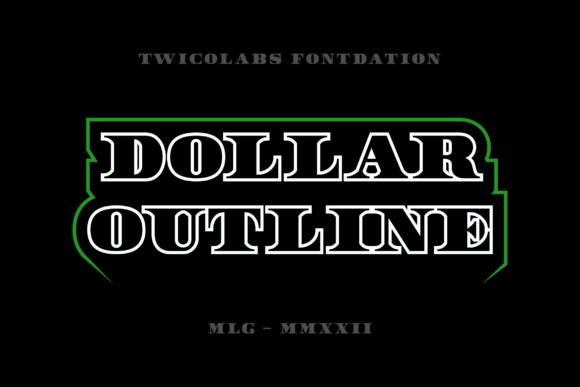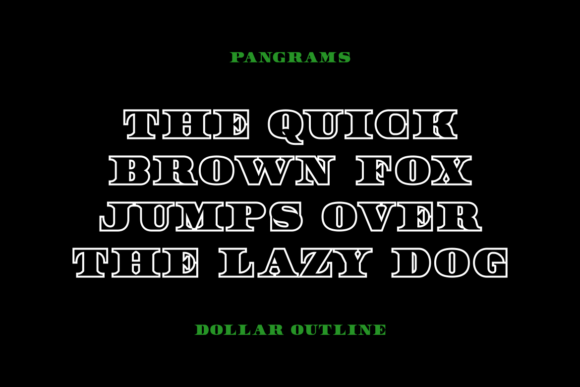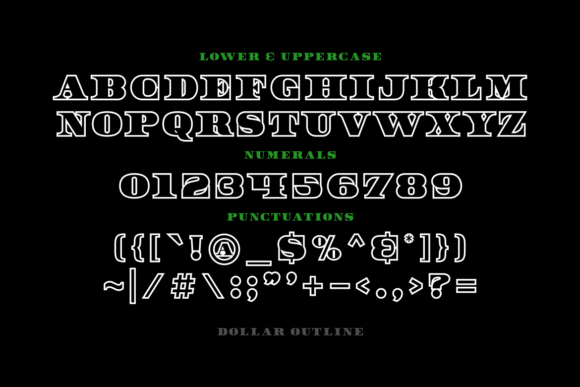
Dollar Outline Font
About the Dollar Outline Font
Introducing the Dollar Outline Font, a beautifully crafted typeface designed to elevate your creative projects. Dollar Outline is a serif display font inspired by banknotes, suitable for classic and vintage designs. This font is a must-have in your library, as it will make your creative projects beautiful and outstanding!
Dollar Outline’s strong, crisp serifs make it ideal for headlines, logos, and short, impactful text on packaging or posters. Its vintage inspiration lends itself well to projects with a classic or retro feel, such as branding for a whiskey distillery or a boutique hotel. Avoid using it for body text or long-form content; its bold design isn’t legible at smaller sizes.
The font’s personality is confident and authoritative, yet refined. Pairing it with a clean sans-serif like Open Sans for body copy would create a balanced and sophisticated look. Alternatively, a playful script font could add a touch of vintage charm, while a geometric sans-serif would provide a modern contrast.
Consider pairing it with fonts like Playfair Display (for a classic pairing), Montserrat (for a modern feel), or Great Vibes (for a touch of vintage whimsy). This ensures visual harmony and avoids overwhelming the design with too much stylistic weight.